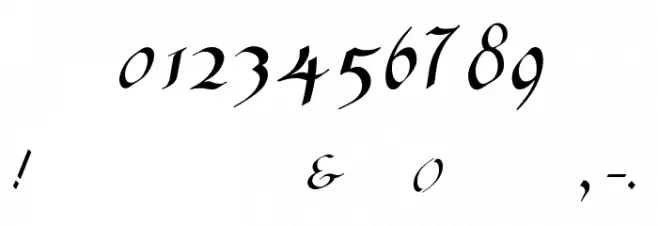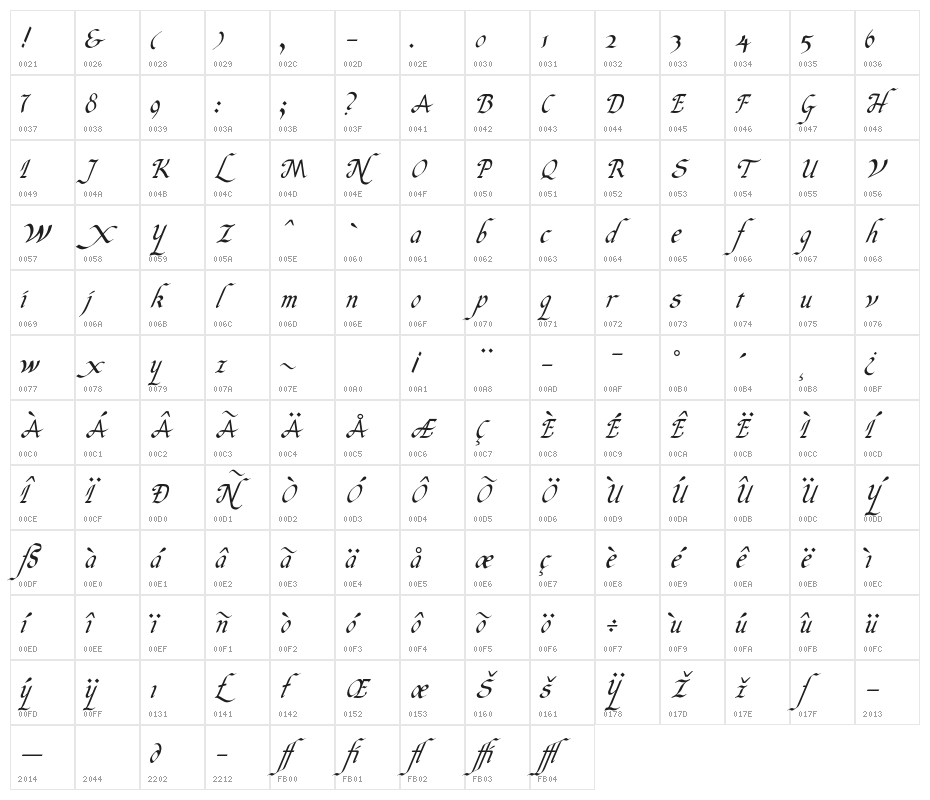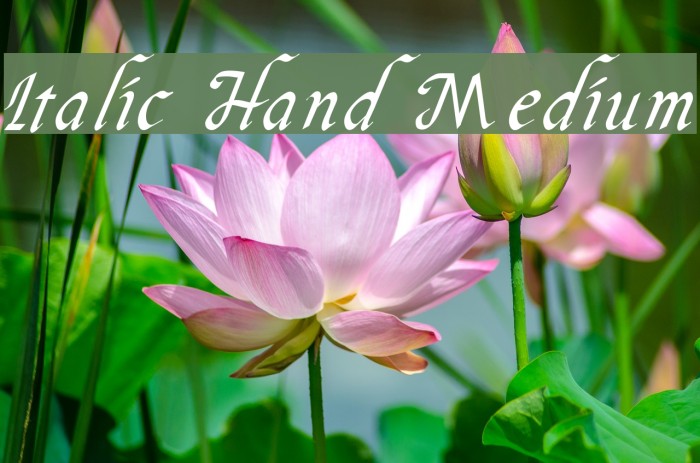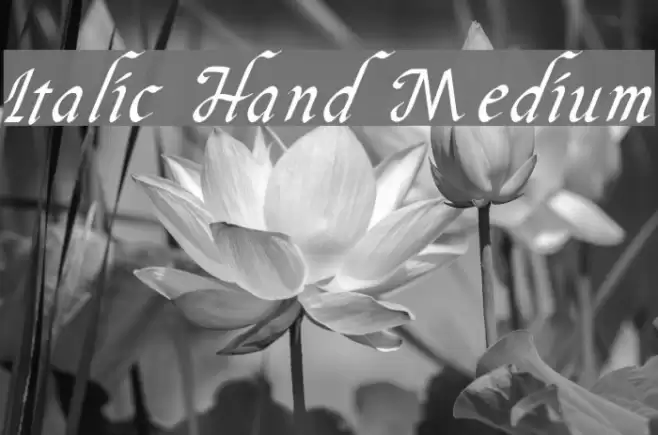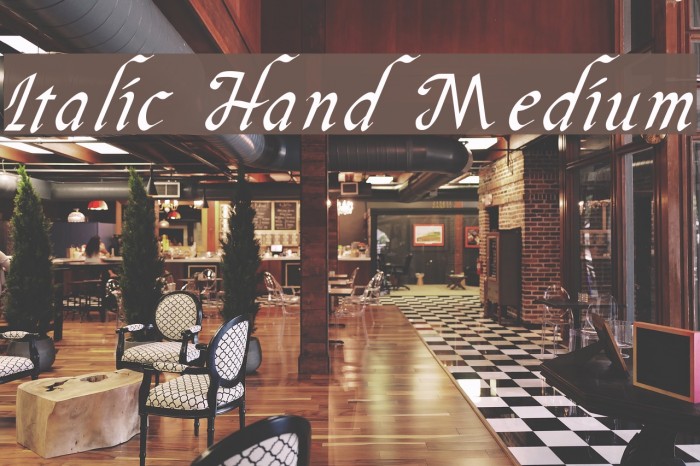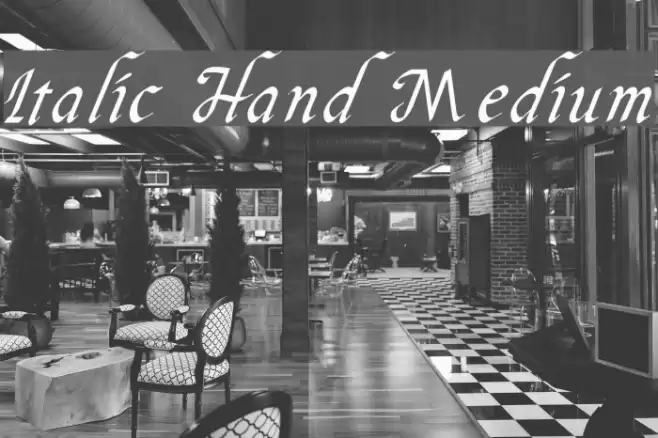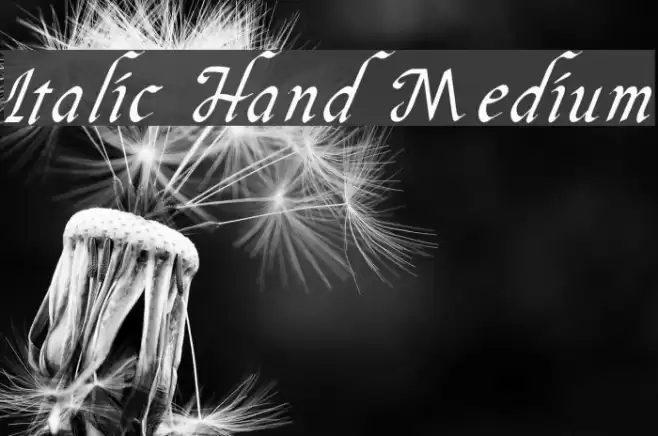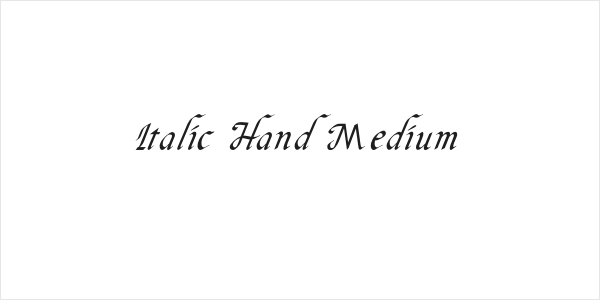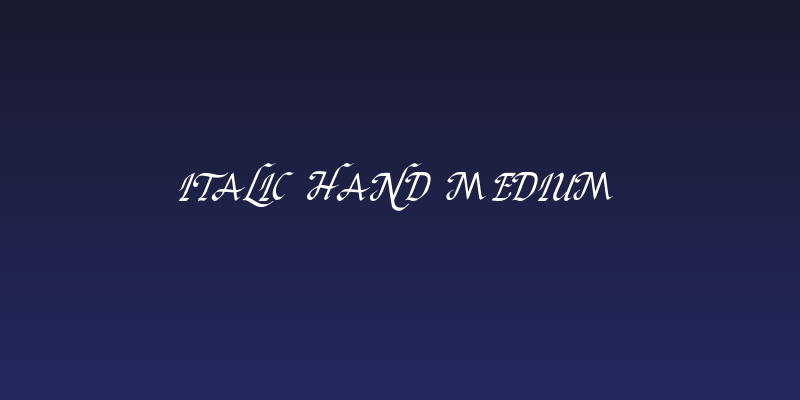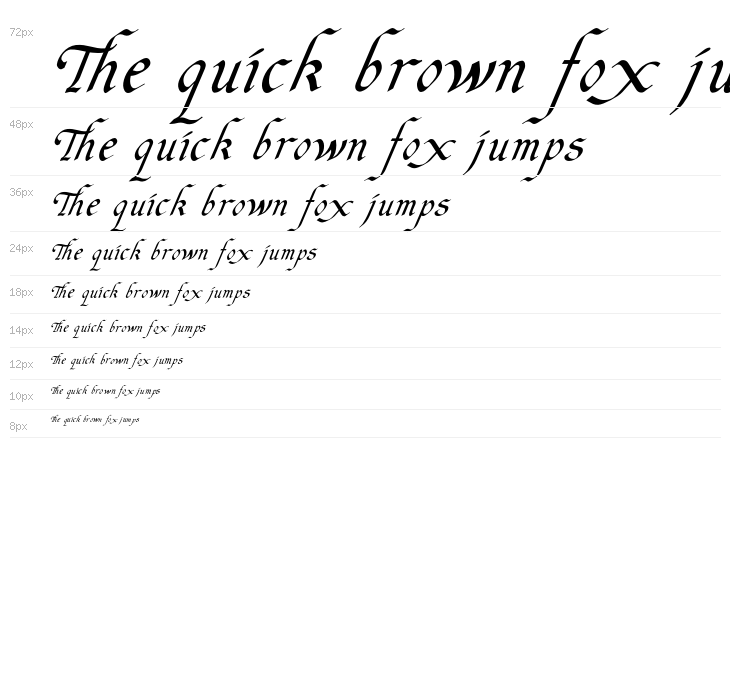
Italic Hand Medium Font
Italic Hand Medium Description
This font exhibits a classic and elegant style with a distinct italic slant, reminiscent of traditional calligraphy. The characters are gracefully curved, with a medium weight that provides a balanced appearance. The uppercase letters are bold and prominent, while the lowercase letters maintain a fluid and connected form. The numerals are consistent with the overall style, featuring smooth curves and a slight inclination. Special characters are designed with the same attention to detail, enhancing the font's cohesive look. The font's medium contrast in stroke thickness adds to its readability while maintaining a sophisticated aesthetic.